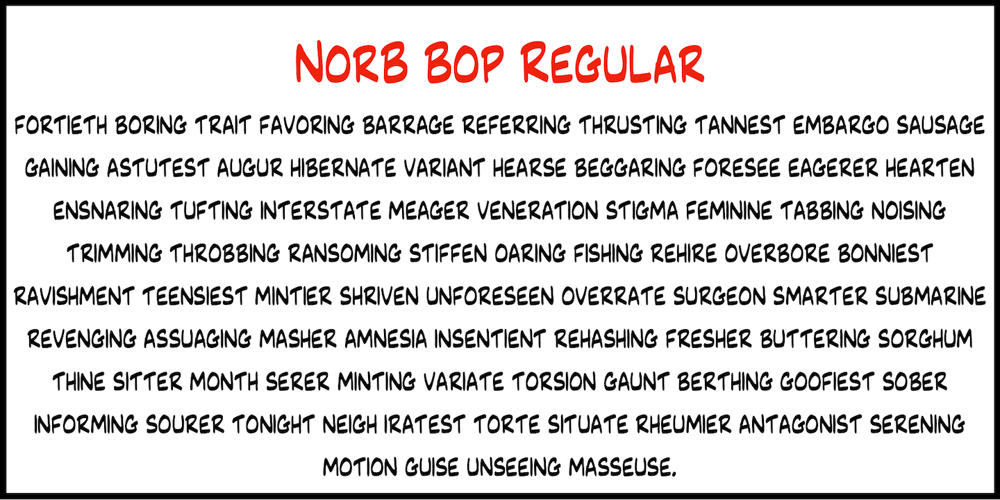
NorB Bop Font Family was designed by Nor Eddine Bahha and published by NorFonts. NorB Bop contains 8 styles and family package options. NorB Bop was inspired from my old BopMusic Script I used for my jazz lead-sheets, a handwritten text font with it’s unique west-coast music copyist lettering style. You can use this font with any word processing program for text and display use, print and web projects, apps and ePub, comic books, graphic identities, branding, editorial, advertising, scrapbooking, cards and invitations and any casual lettering purpose… or even just for fun! NorB Bop comes with 8 weights, each with their matching italics and in a Normal and Condensed version.